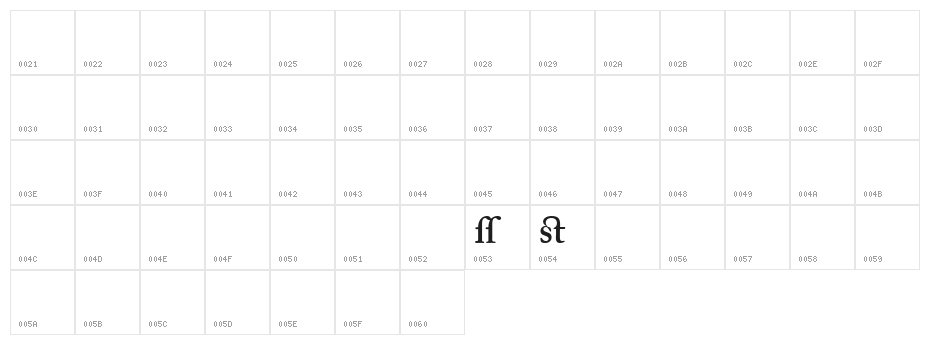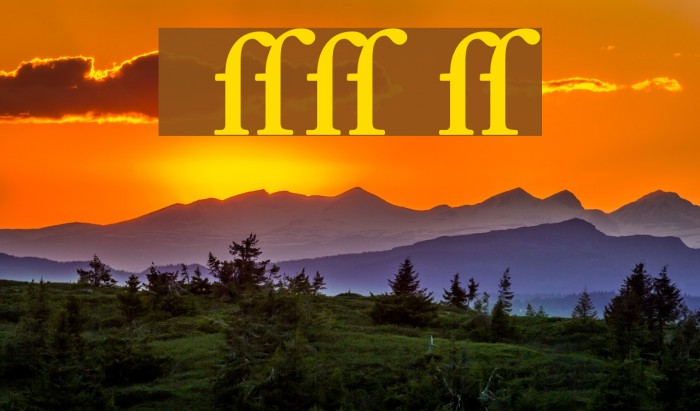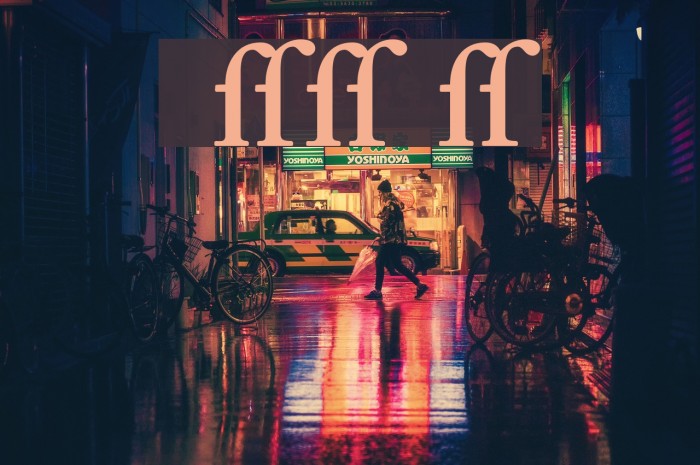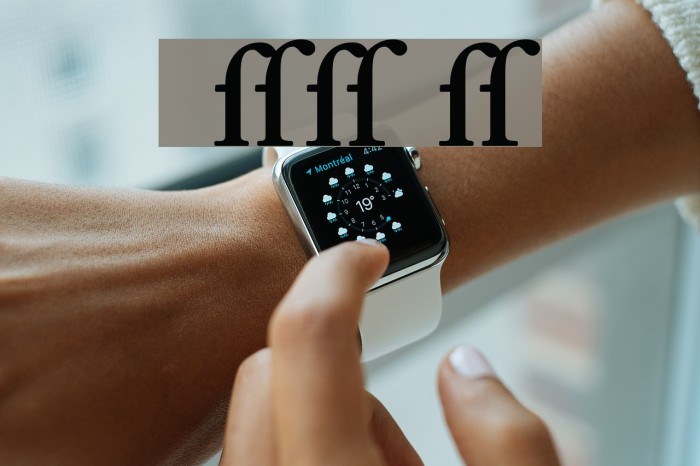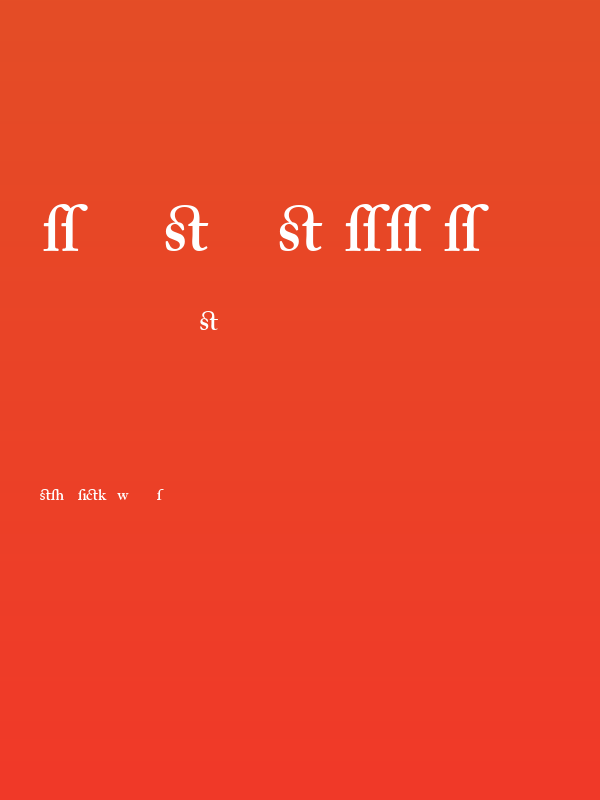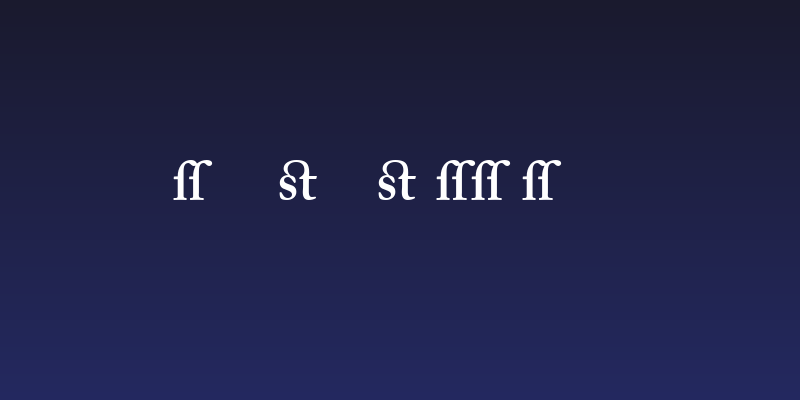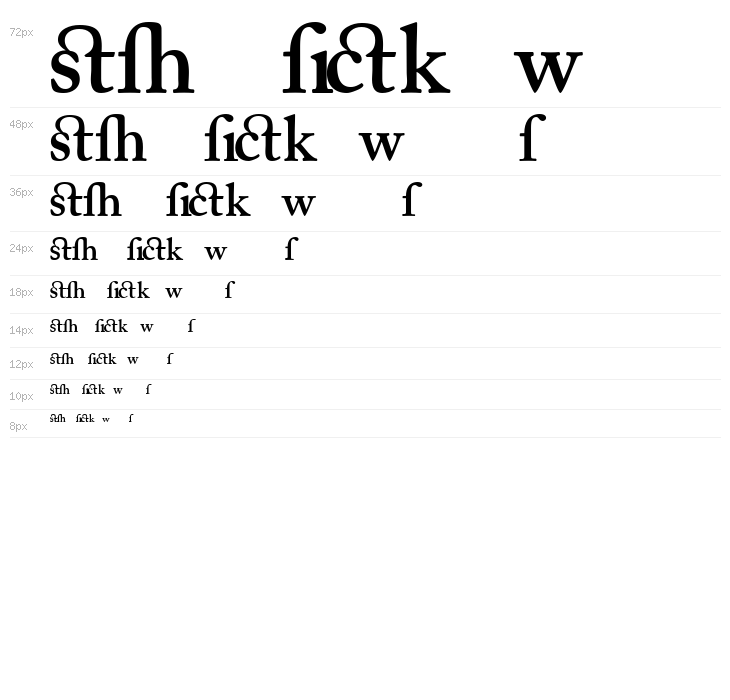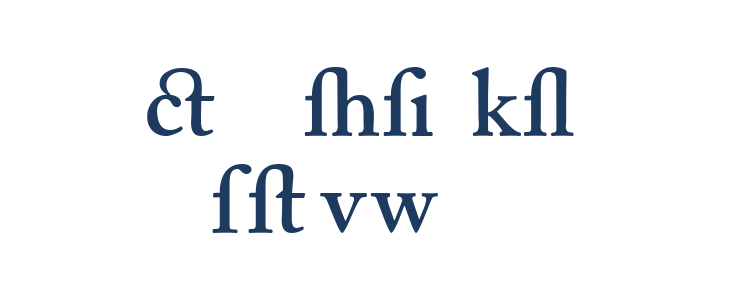
CaslonAlternateSSK SemiBold Font
CaslonAlternateSSK SemiBold Description
This font features a classic and elegant design with a semi-bold weight, characterized by its distinctive ligatures and smooth curves. The letters exhibit a traditional serif style, with a refined and sophisticated appearance. The font's ligatures, such as 'ff', 'fi', and 'fl', are particularly notable, adding a touch of artistry and fluidity to the text. The overall design is balanced and harmonious, making it suitable for a variety of applications where a touch of elegance is desired.
Overall StyleClassic
Use CaseHeadlines, Editorial design, Formal invitations
Proposed ProjectsIdeal for use in formal invitations, editorial design, branding projects, and any application requiring a touch of sophistication.